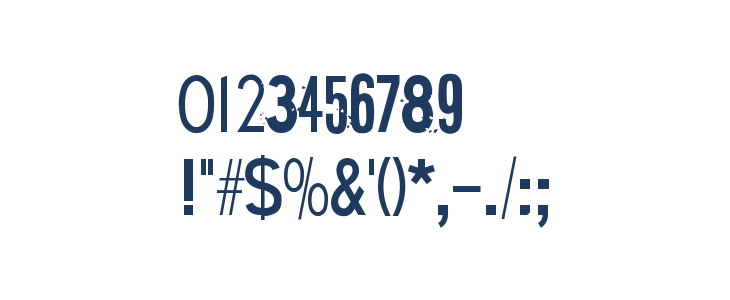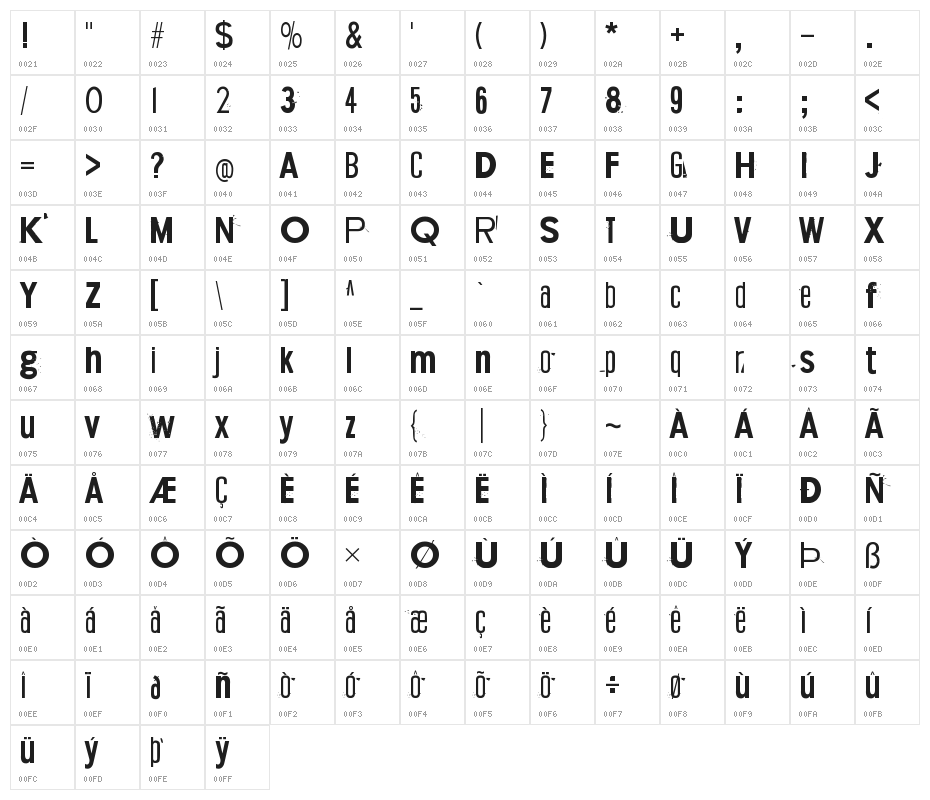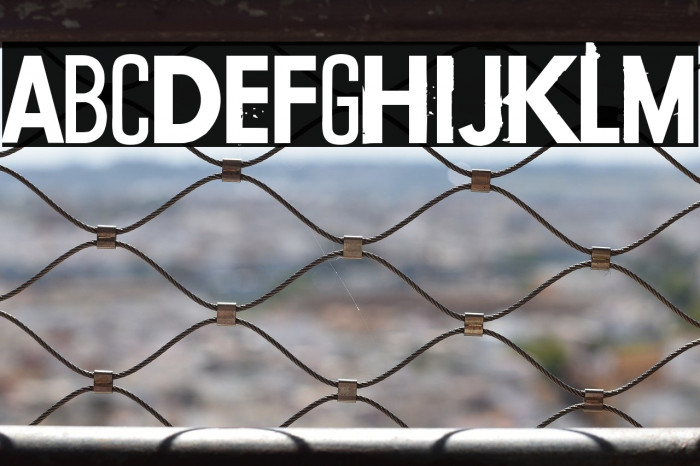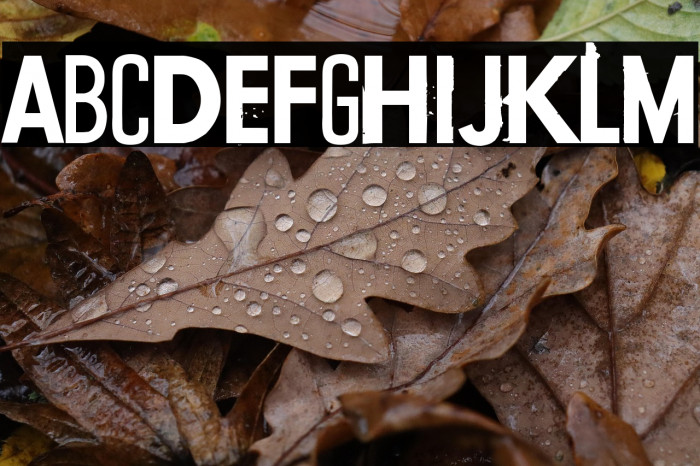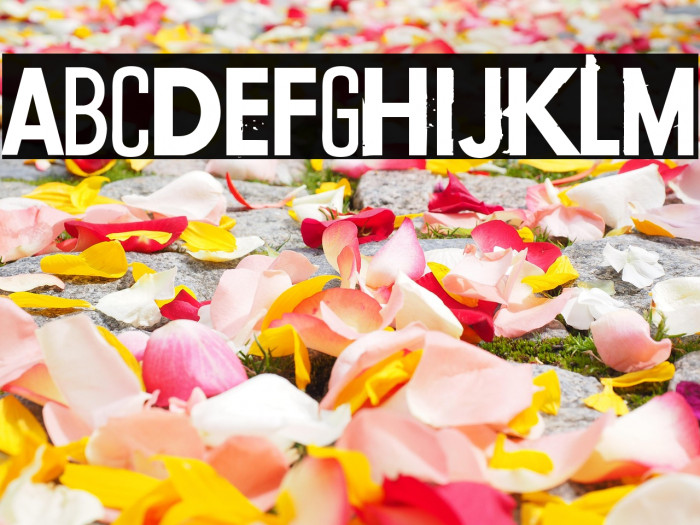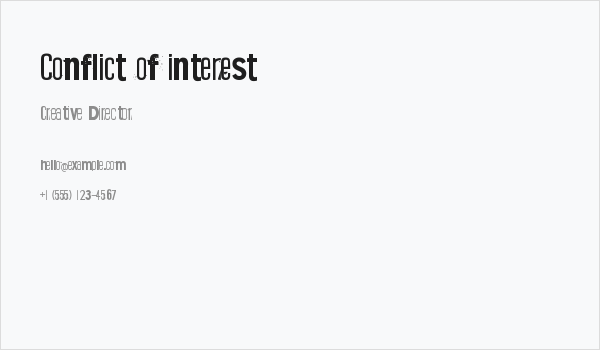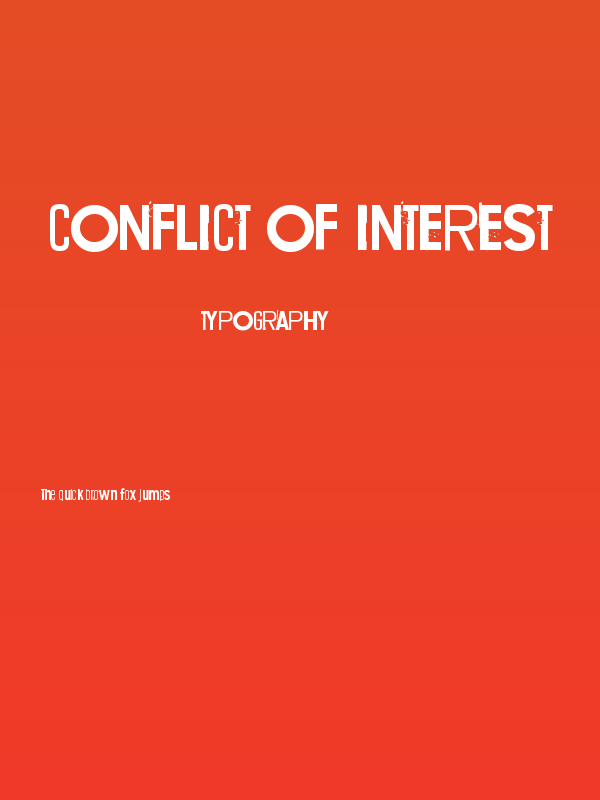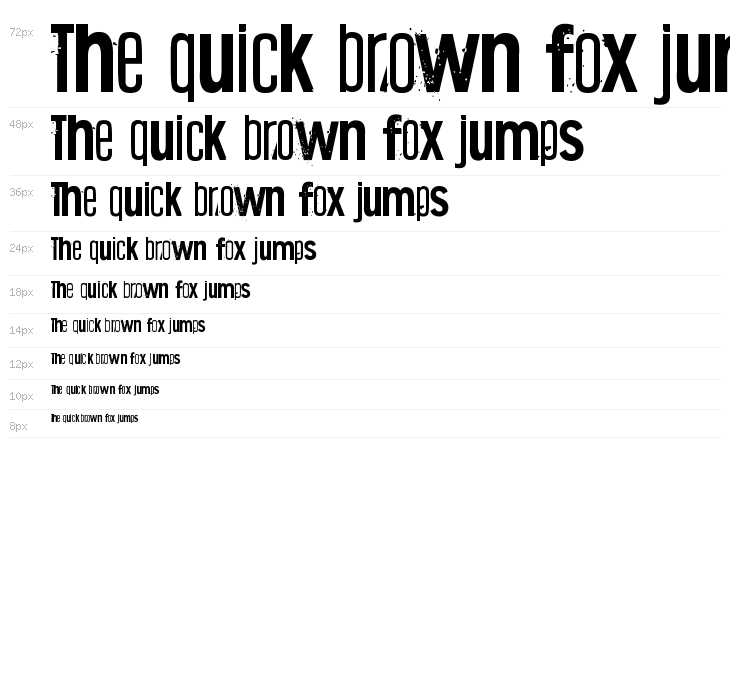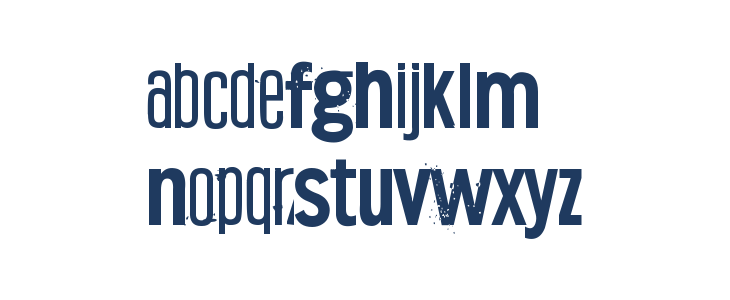
Conflict of interest Font
This font features a bold and impactful design with a distressed, grunge texture that gives it a rugged and edgy appearance. The uppercase letters are strong and commanding, while the lowercase letters maintain a consistent style, offering a cohesive look. The numerals and special characters are designed to match the boldness of the alphabet, ensuring uniformity across all characters. The font's unique texture adds character and depth, making it ideal for projects that require a bold statement or an urban, gritty feel. Its versatility allows it to be used in various creative contexts, from posters and album covers to branding and advertising materials.
Overall StyleDecorative, Grunge
Proposed ProjectsIdeal for posters, album covers, branding, advertising, and any project needing a bold, edgy look.